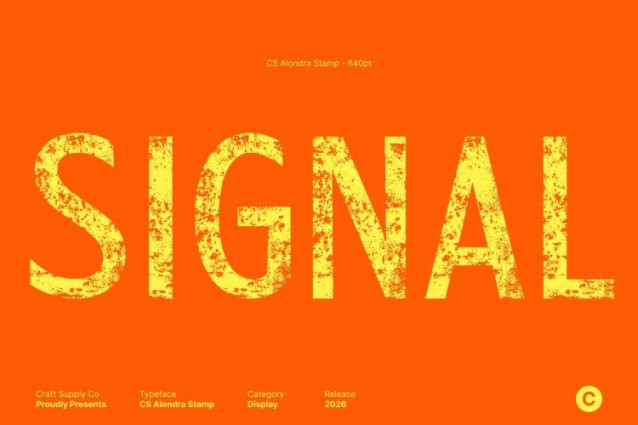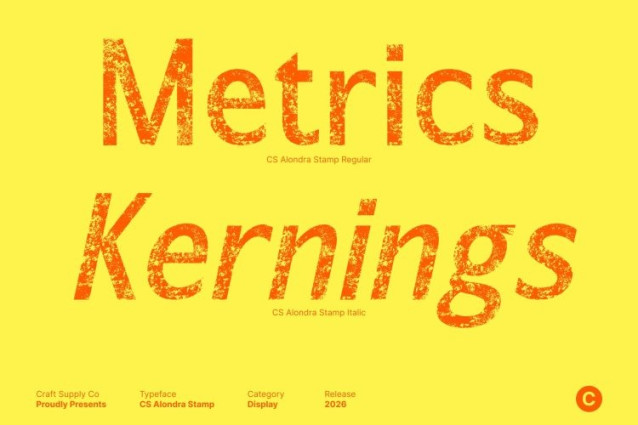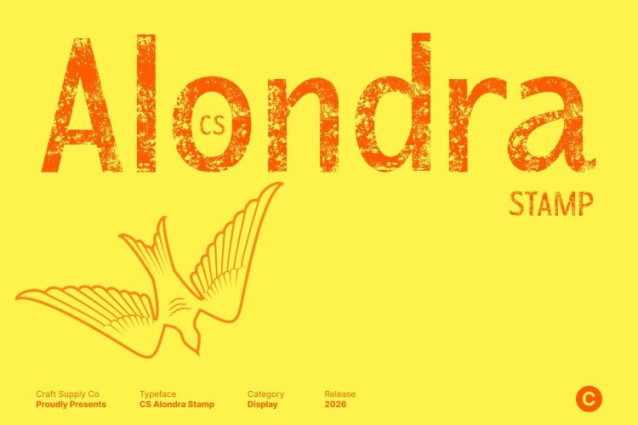
CS Alondra Stamp Font This is a modern sans serif font built for clarity, professionalism, and visual balance. Its simple, elegant letterforms create a sleek and minimalist aesthetic. The subtle stamp effect adds texture and depth, giving the font a handcrafted, slightly vintage character while maintaining its clean, modern appeal.
Versatile Design for Corporate and Creative Use
With its straightforward, functional design, this font adapts seamlessly across multiple mediums. The stamped texture introduces a unique touch that sets corporate presentations, marketing materials, and web design apart, combining modern professionalism with subtle artistic character.
Balanced Proportions with Modern Appeal
The font’s carefully measured proportions and refined stroke weights enhance readability while adding visual interest. The vintage stamp finish softens the clean geometry, giving layouts a distinctive, tactile feel without compromising the font’s modern clarity.
Ideal for Professional and Contemporary Projects
Perfect for corporate branding, editorial layouts, product packaging, and digital media, this font blends sophistication with timeless character. Its modern sans serif foundation combined with textured, vintage charm makes it a versatile choice for designers seeking polished, professional, and memorable typography.